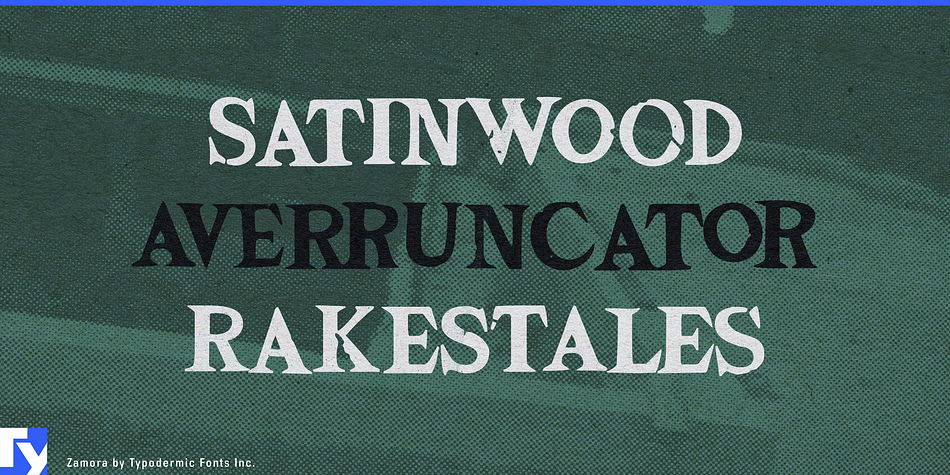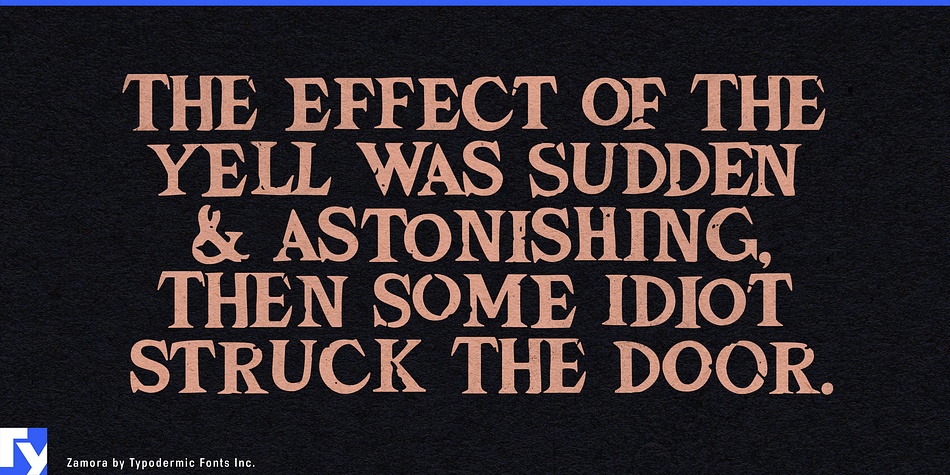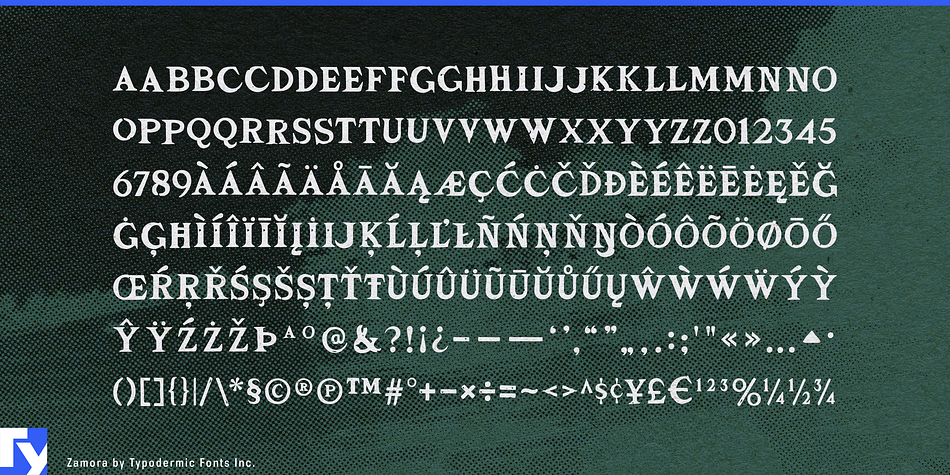
Zamora is a grunge font published by Typodermic Fonts Inc.
Zamora is tough. It’s cool. It’s crazy. Don’t call it girly. Battered from veering off the beaten path, Zamora wears its scrapes and scratches like battle scars. Sharp Latin serifs give Zamora real intensity. Zamora comes loaded with a huge variety of automatic ligatures that give text a natural, random look because repeating letters is for squares. Zamora zigs when other fonts zag giving it that edgy, anxious feel . . . like it’s got places to go.